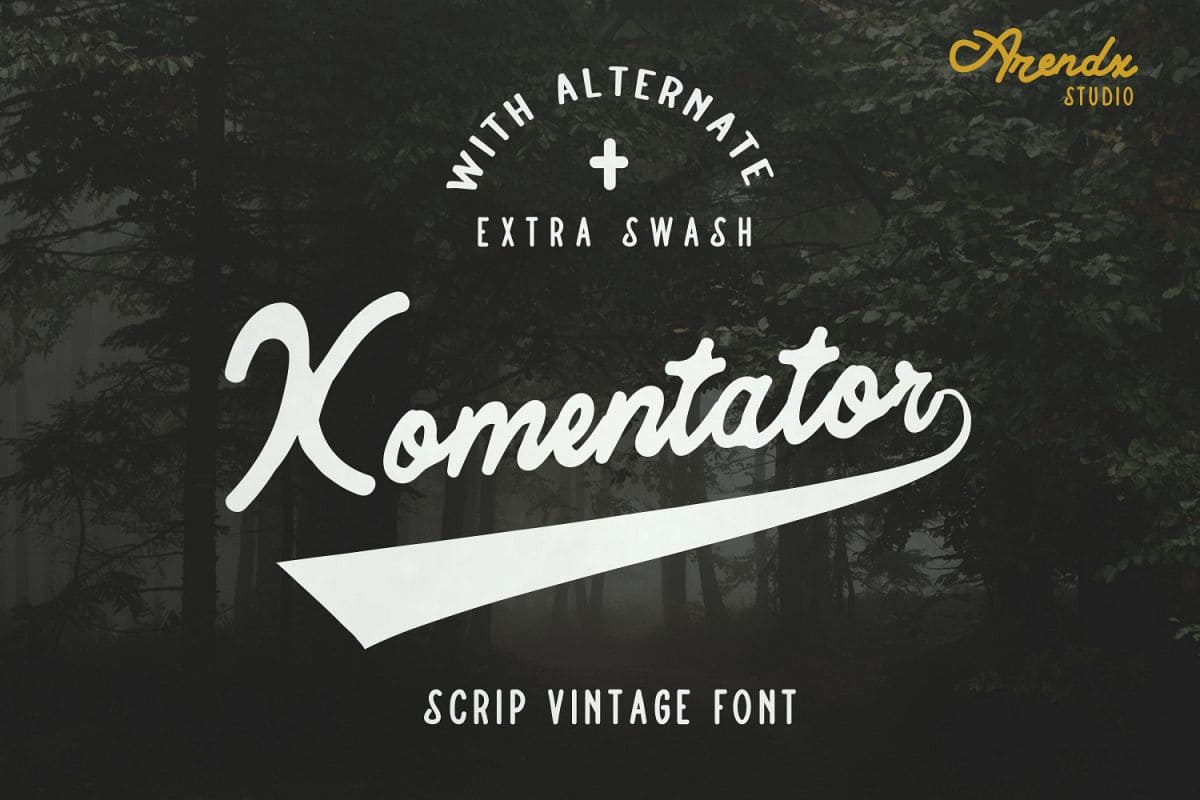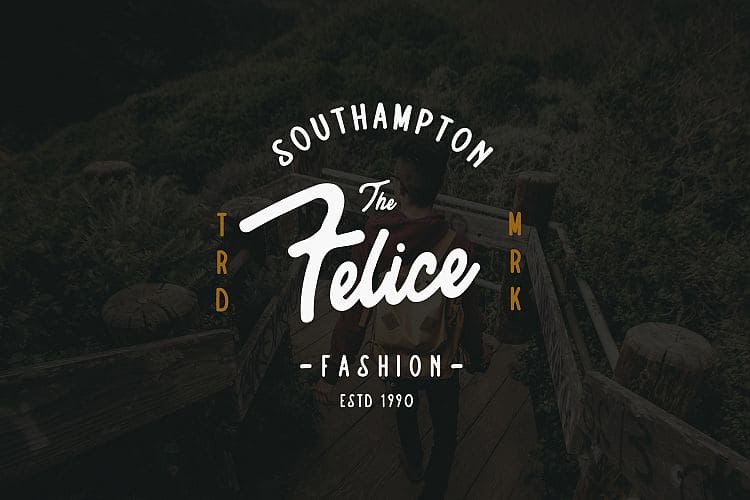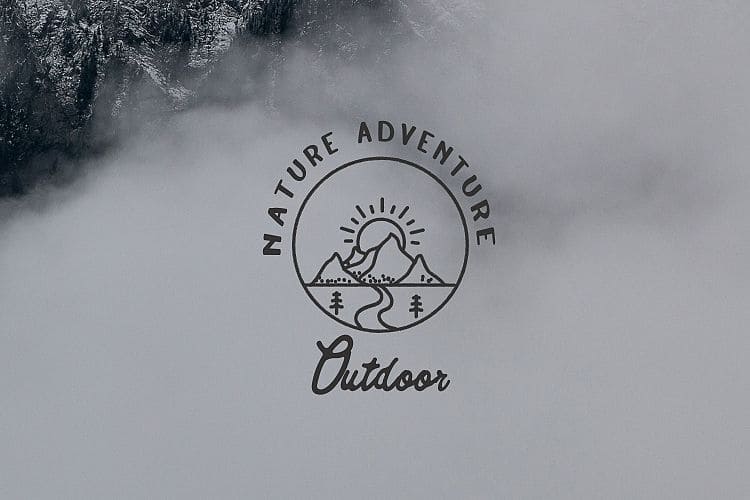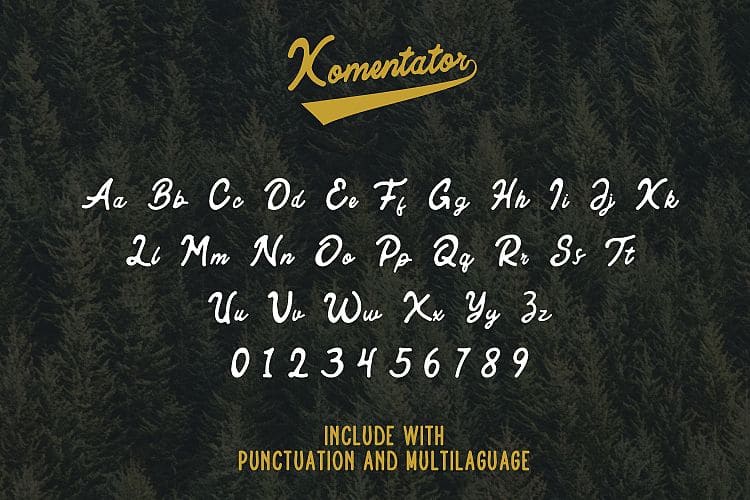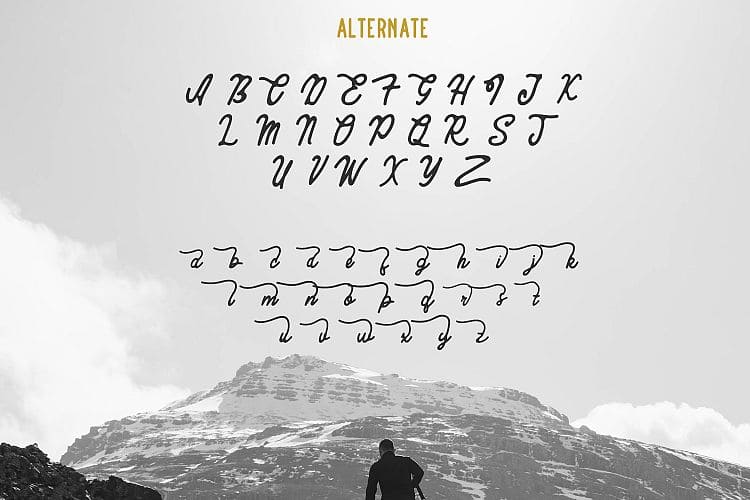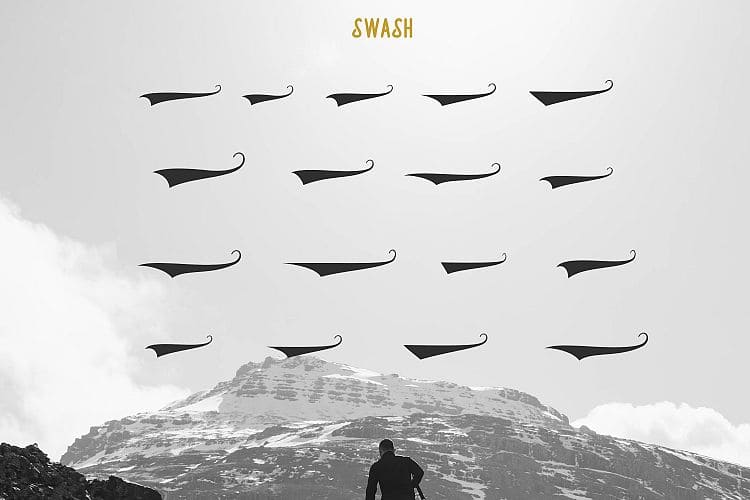
Komentator (1 font)
Komentator is a monoline vintage script typeface which is created based on manual hand lettering with many features such as, stylistic set alternate, swashes.